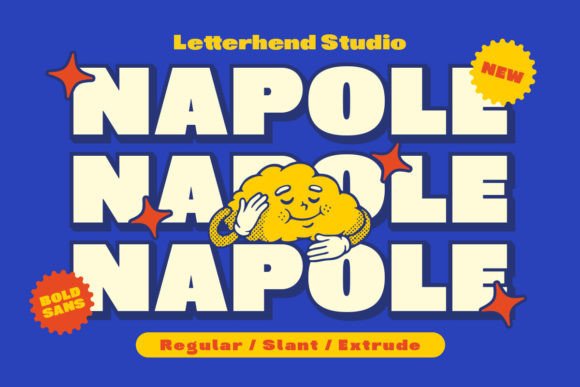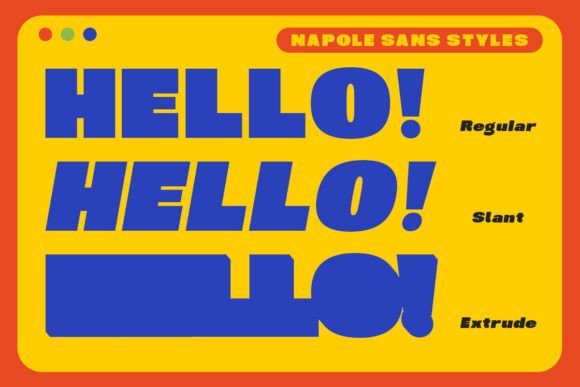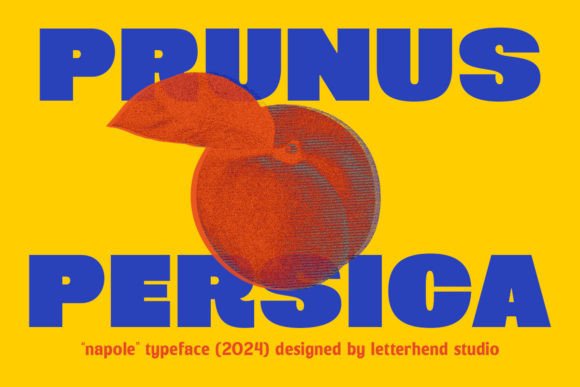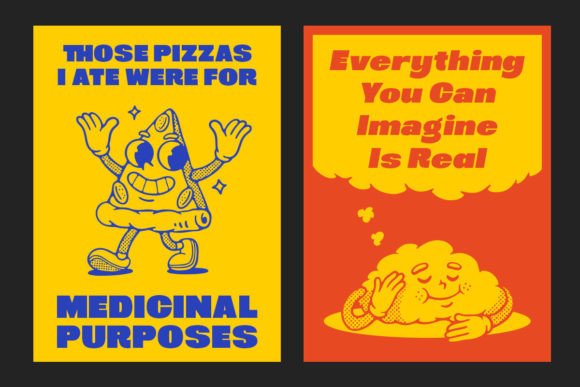
Napole Font
About the Napole Font
Discover the charm of Napole Font. This font is a perfect blend of modern aesthetics and classic appeal. Napole is a heavy, bold, standout sans serif. Available with slant and extrude version. This type of font perfectly made to be applied as a headline, logo, title, quotes which is need a standout font, and the other various formal forms such as invitations, labels, logos, magazines, books, greeting / wedding cards, packaging, fashion, make up, stationery, novels, labels or any type of advertising purpose.
Napole’s strong, bold presence makes it ideal for headlines, branding elements, and short impactful text across various media, from posters and packaging to social media graphics. Its heavy weight commands attention, making it perfect for conveying power or luxury. However, its boldness renders it unsuitable for body text or UI elements requiring high readability. Extended use can quickly overwhelm the reader.
For a balanced aesthetic, pair Napole with a clean, neutral sans-serif like Lato for body copy, or a refined serif like Garamond for a touch of classic elegance. The extrude version pairs especially well with geometric sans-serifs to create a modern, high-impact design.
Napole projects confidence and a sense of high-end luxury. It’s an excellent choice for brands aiming for a strong, memorable identity that suggests sophistication and authority. Avoid using it for projects requiring approachability or a friendly, casual tone.
Napole Font Usage Examples
Napole Font Example